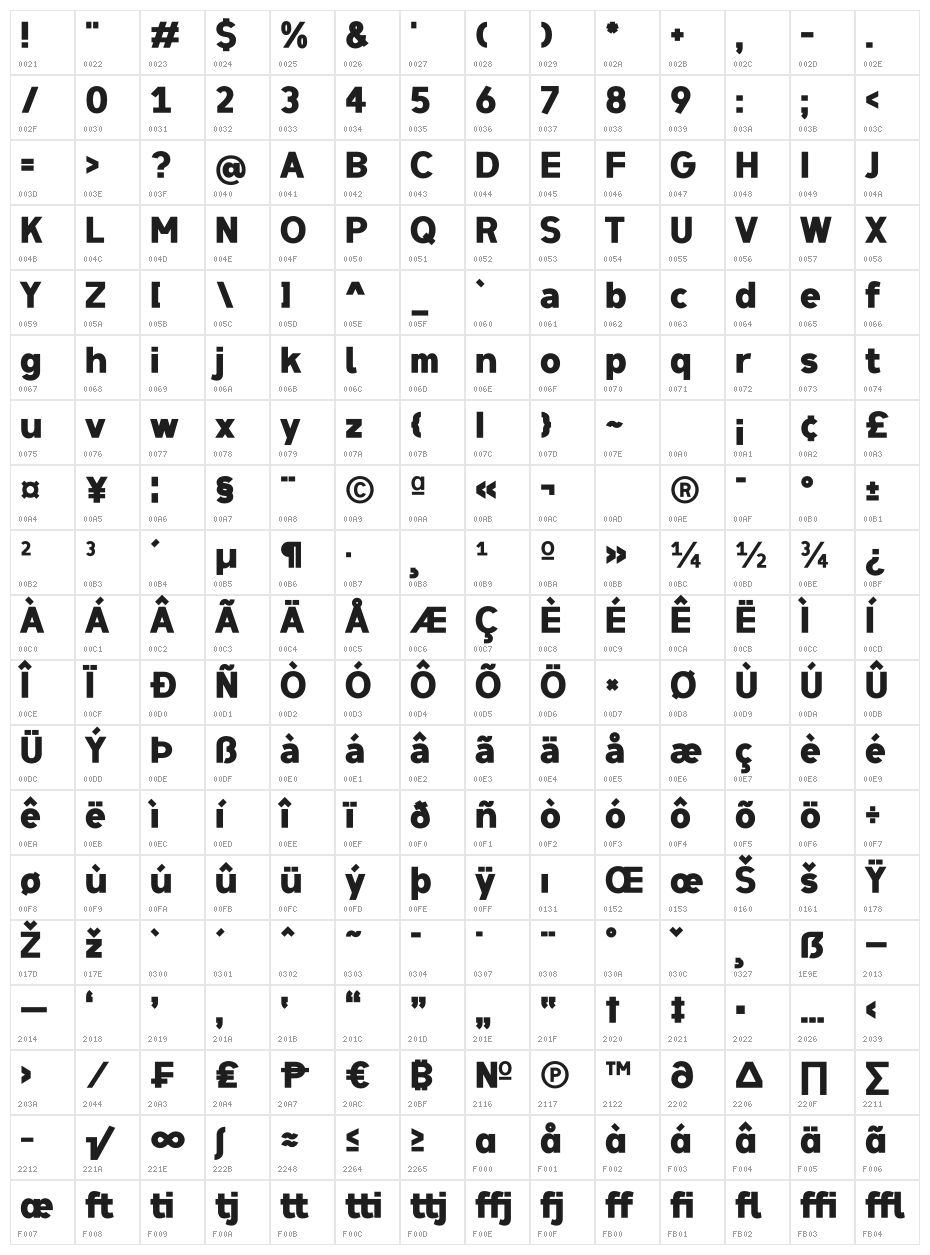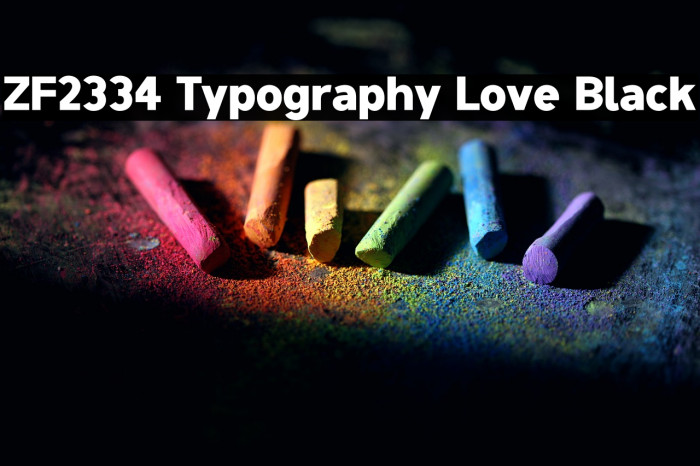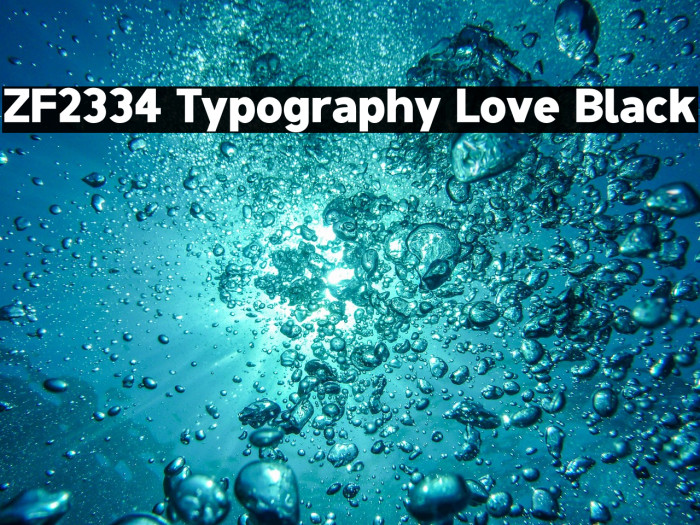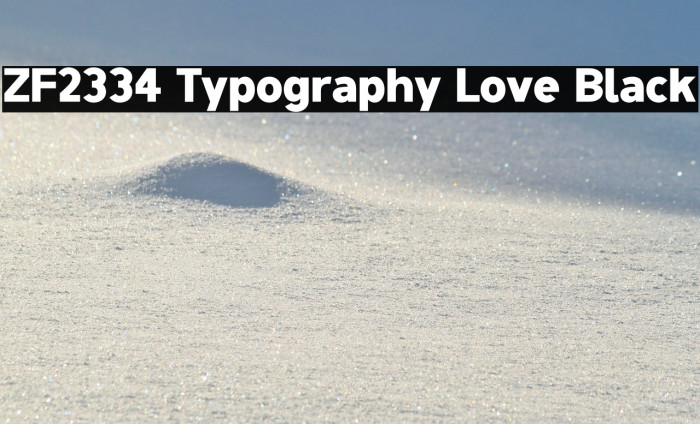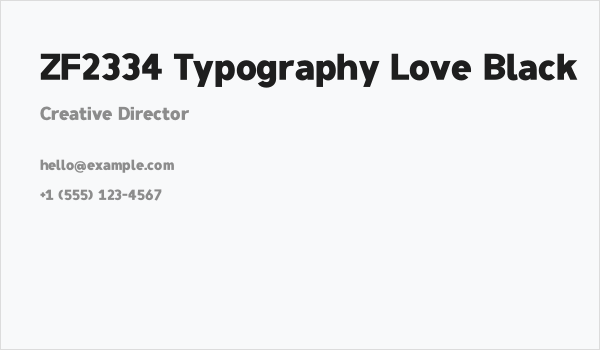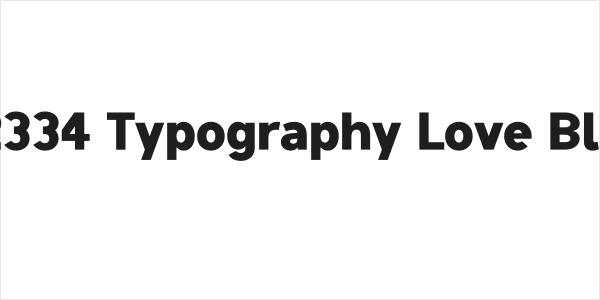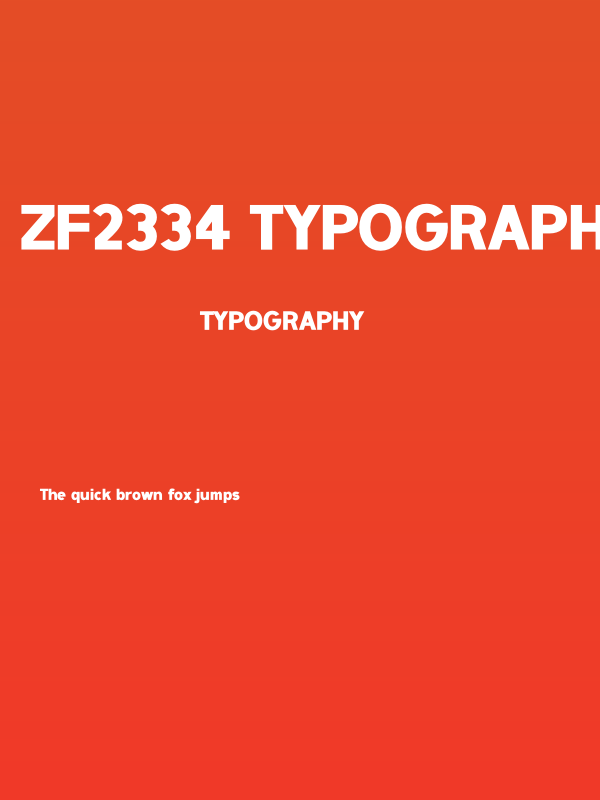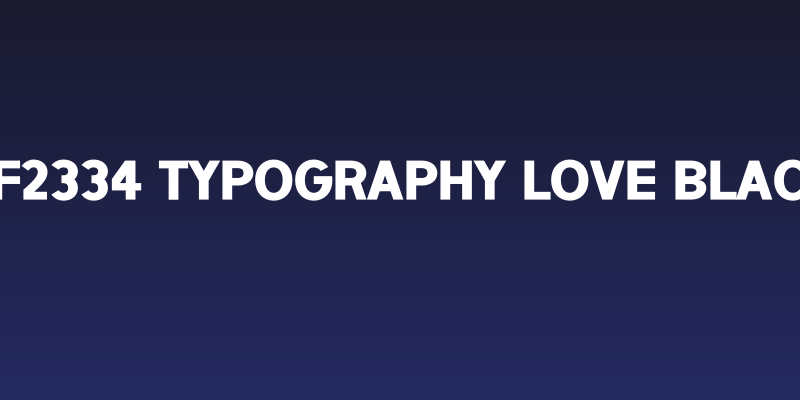
ZF2334 Typography Love Black Font
ZF2334 Typography Love Black Description
This font features a bold and striking design, characterized by thick strokes and a strong presence. The characters are crafted with a modern aesthetic, combining clean lines with a touch of elegance. The uppercase letters are particularly prominent, while the lowercase letters maintain a consistent style. The numerals are clear and easy to read, making them suitable for various applications. Special characters are designed to complement the overall look, enhancing the font's versatility. The font's design is both functional and visually appealing, making it ideal for projects that require a bold statement.
| Proposed Projects | Ideal for branding, headlines, posters, and any project requiring a bold, impactful typeface. |